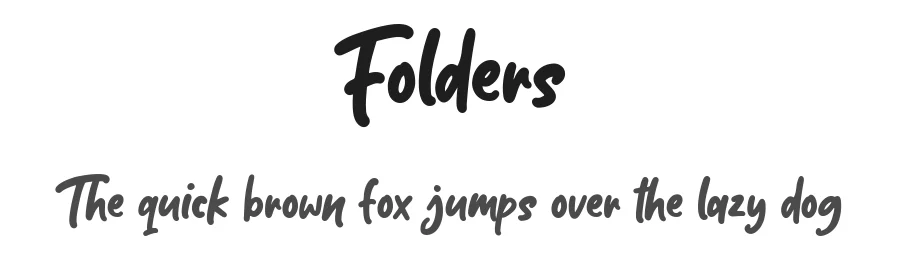
About Bilgathes Font
Bilgathes Specifications
| Glyph Count | 142 glyphs |
Bilgathes supports 197 languages.
Bilgathes Font is a script font that shines as a display or heading face. Pair it with a clean sans-serif or serif font for body text β the contrast creates a clear hierarchy while the two styles stay balanced and easy to read.